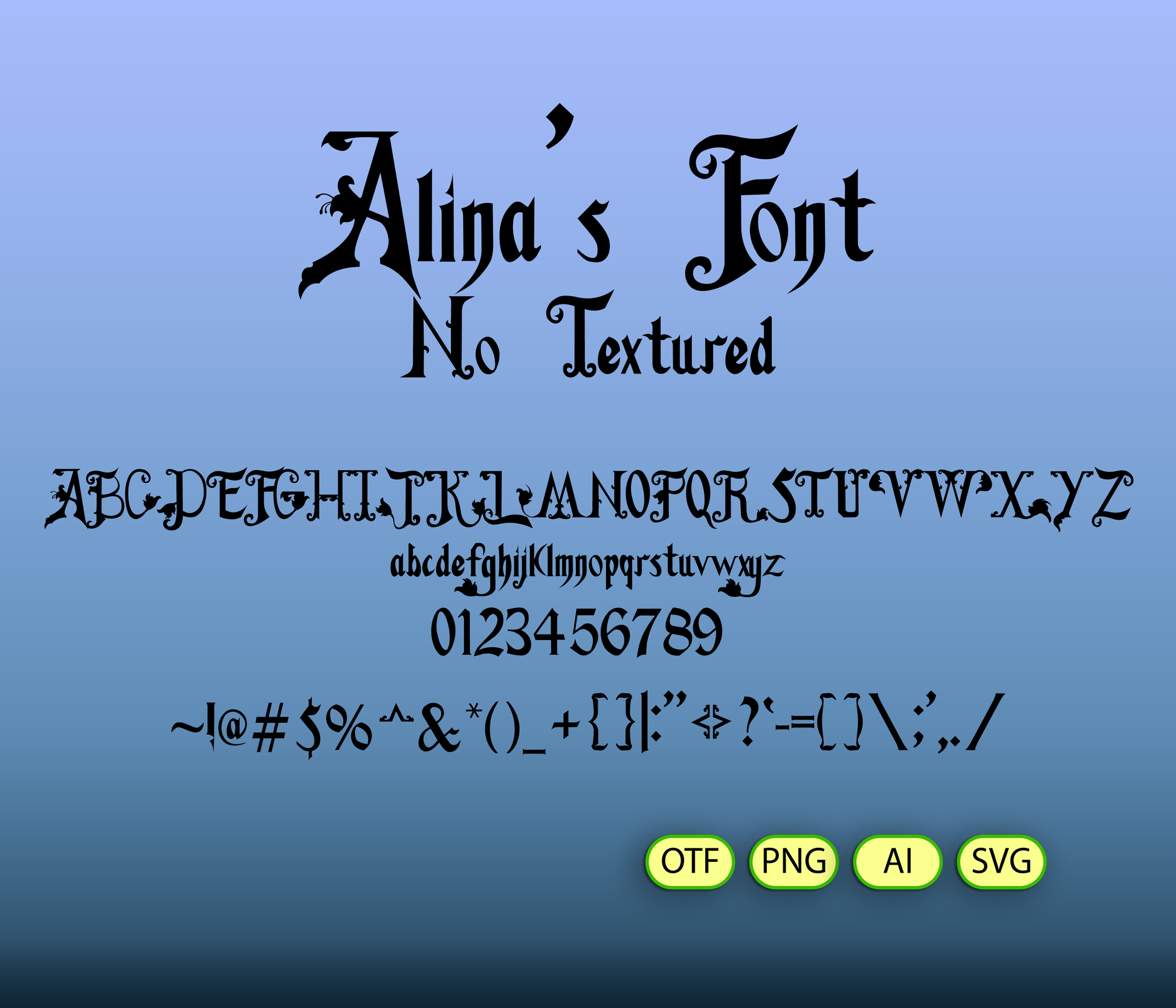
Haunted Heritage Eccentric Font
Haunted Heritage Eccentric Family Style
Enter the shadowy realm of peculiar households and macabre traditions with our Haunted Heritage font, embodying the spirit of unconventional family bonds and darkly humorous celebrations. Designed for gothic enthusiasts, alternative lifestyle creators, spooky content developers, and artistic professionals, this font channels the wickedly charming, mysterious essence of eccentric family gatherings into your creative work. Craft bewitching announcements, dark comedy merchandise, or supernatural content with the delightfully twisted, family-focused atmosphere of haunted household adventures.
Our Haunted Heritage font showcases elaborate, Victorian-inspired flourishes and mysteriously playful letterforms capturing the magnificently peculiar yet loving spirit of unconventional family dynamics. Perfect for: